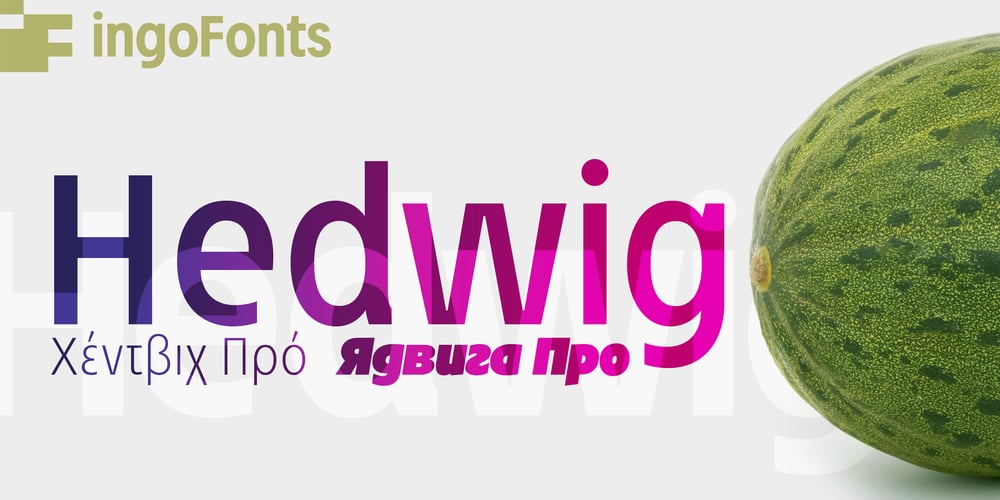
Hedwig Pro Font Family was designed by Ingo Zimmermann and published by Ingo. Hedwig Pro contains 12 styles and family package options. A modern sans serif with open round forms.The ”round“ letters emphasize the condensed open oval; the light counter forms provide the rhythm of the typeface, causing the typeface to appear gentle and pleasing. The ”modern“ design of a and g being especially contributive here.All of the letters are recognizably narrow, almost ”condensed,“ the forms being very functionally shaped. The construction of the ”triangular“ upper case letters A M N V W as well as v and w, especially catches the eye with the shafts joined together as beams are stacked upon each other. With this construction Hedwig displays a down-to-earth touch.Contrary to the classical sans serifs, a few letters were given light echoes of serifs which promote fluency: a d l are displayed below the line in a reading direction and end in a compressed but also very short serif style; on m n p r the upstroke is gently displayed and on u the downstroke.For all the typo-maniacs among you designers there are alternative forms for a number of letters in Hedwig: A B D G I M R W and a d f g j l ß u. Even an antiquated ”long“ s and an upper case ß is available.Plus, Hedwig includes numerous ligatures which can save that little bit of space where required and which allow the typeface to appear more variable: ch, ck, ct, fi, fj, fl, ff, ffi, ffl, ft, mm, ti, tt, tz.